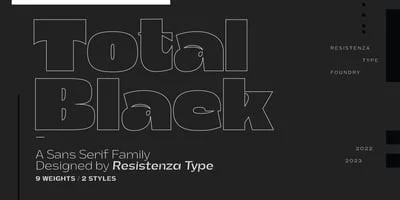
Total Black Font
Total Black Font is ideal for dramatic poster designs, bold fashion branding, high-impact advertising campaigns, striking magazine headlines, powerful logo creations, dark entertainment projects, and commanding visual statements.
What makes Total Black Font exciting is its absolute boldness and maximum visual impact, featuring ultra-heavy letterforms that capture complete darkness while delivering uncompromising presence and dramatic intensity.
The Total Black Font family includes Light, Regular, Medium, Bold, and Total Black weights, plus condensed variants and impact alternates that enhance the font's powerful character and dramatic possibilities.
Total Black Font delivers the ultimate expression of typographic power and dramatic visual dominance for high-impact design projects. This commanding typeface represents the absolute pinnacle of bold typography, creating an overwhelming visual presence that speaks to audiences who demand maximum attention, dramatic effect, and uncompromising visual strength. The font's total darkness and absolute boldness make it perfect for fashion brands, entertainment companies, and creative projects that want to communicate power, intensity, and the commanding presence of maximum visual impact.
Creative agencies and bold entertainment brands consistently choose Total Black Font for projects that require absolute visual dominance and dramatic credibility. The typeface's maximum weight construction and overwhelming personality make it exceptionally effective for fashion houses, entertainment venues, and creative organizations where total visual impact and dramatic presence are paramount. Each character has been crafted with absolute precision to ensure maximum darkness across all high-impact applications and dramatic environments.
The dramatic advantages of Total Black Font extend beyond its bold appeal to include practical functionality for diverse high-impact applications. The font maintains excellent readability despite its extreme weight while delivering the distinctive character that creates unforgettable brand experiences and connects with audiences seeking powerful, dramatic visual communication. Its comprehensive character set includes bold symbols and dramatic elements that make it particularly suitable for impact documentation and powerful communication.
Fashion brands, entertainment companies, and dramatic creative organizations frequently incorporate Total Black Font into their brand identity systems because of its ability to instantly convey maximum power and absolute visual dominance. The typeface's overwhelming aesthetic helps establish strong brand recognition while appealing to audiences who value dramatic design, visual intensity, and the confidence that comes from bold, uncompromising visual communication and total design commitment.